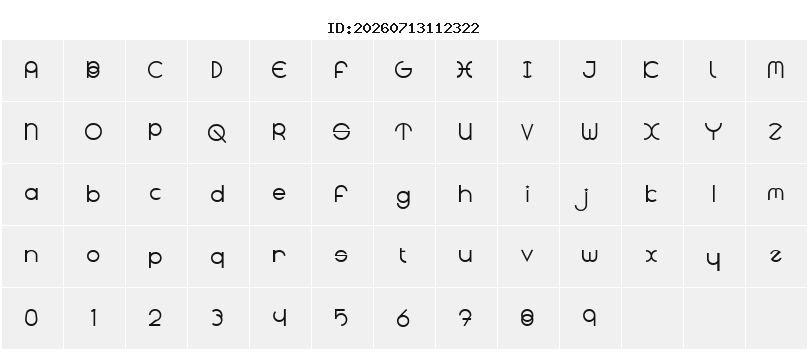
Radius Preview
• Font Name: Radius
• Font ID: Macromedia Fontographer 4.1 Radius
• Full Font Name: Radius
• Version: Macromedia Fontographer 4.1 4/2/98
• PostScript Name: Radius
• Character Count: 97
About Radius.ttf
Radius.ttf is a modern, elegant sans-serif font designed for ultimate readability and visual harmony. Perfect for branding, headlines, web design, and print materials.